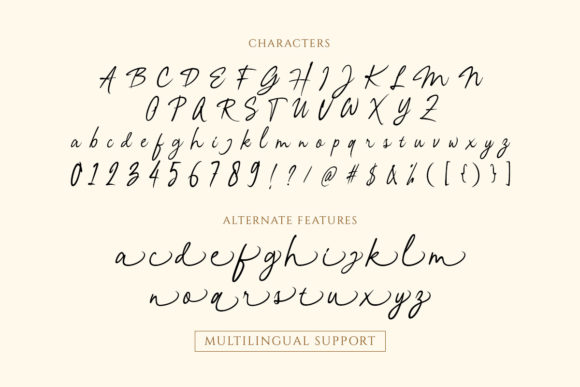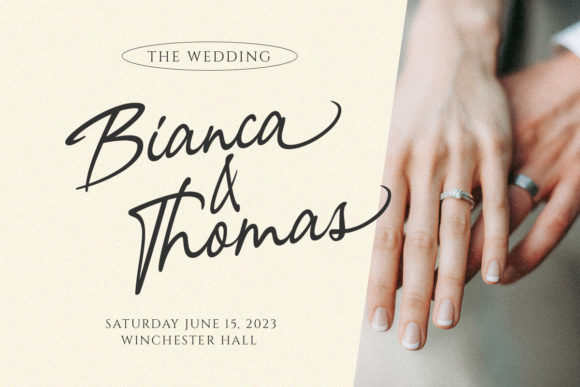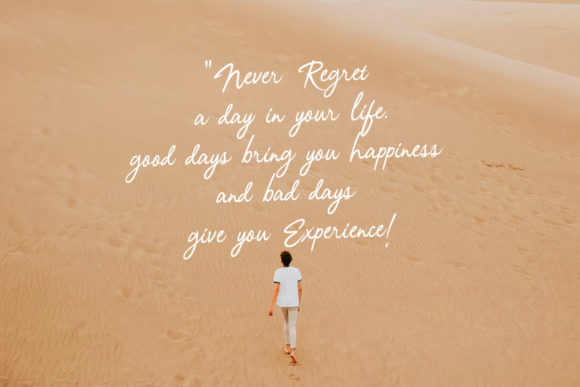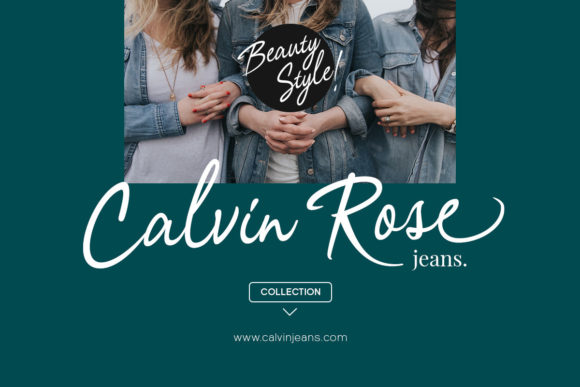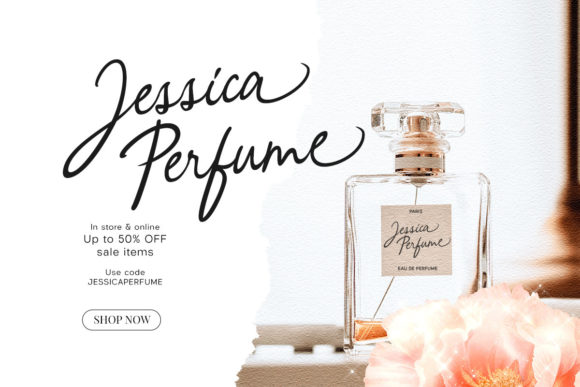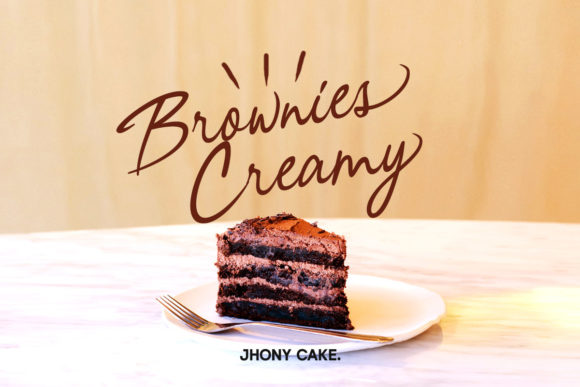
Introduction to Nagintha Font
Nagintha is a vintage styled handwritten script with natural look and feel.
This type of font was perfectly made to be applied on logos, and other various formal forms such as invitations, labels, logos, magazines, books, greeting or for any type of advertising purpose .